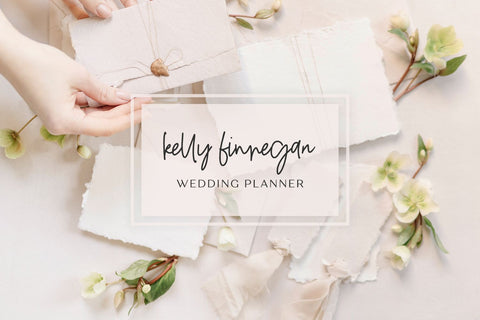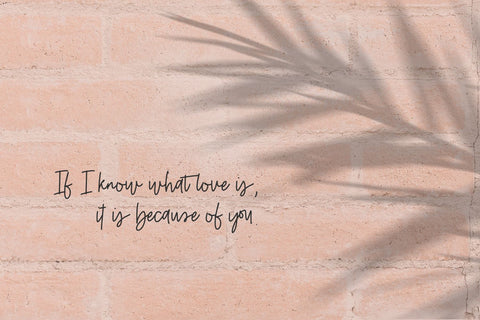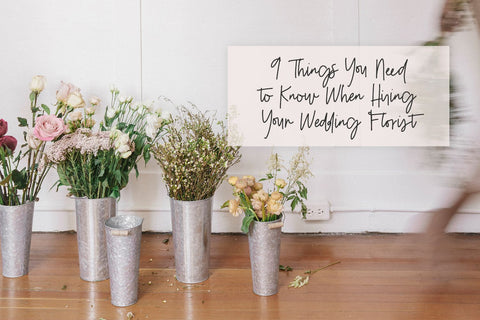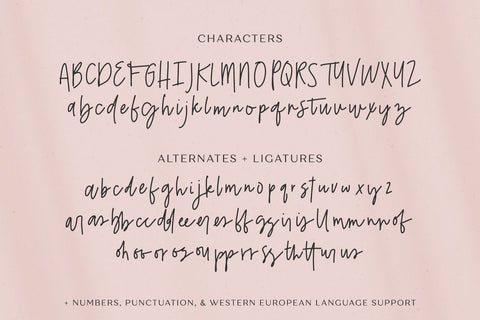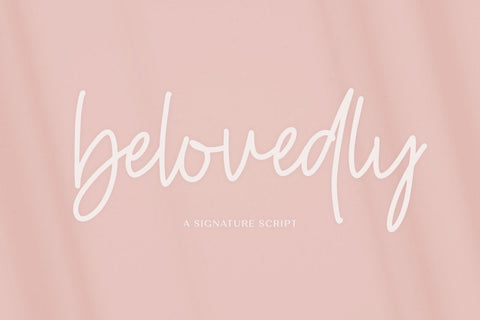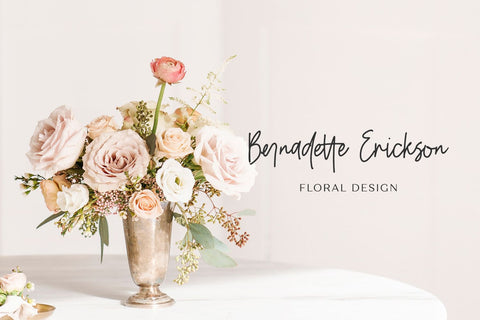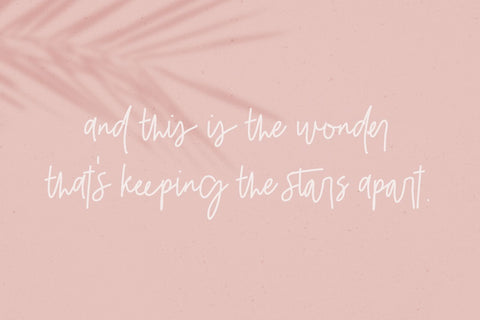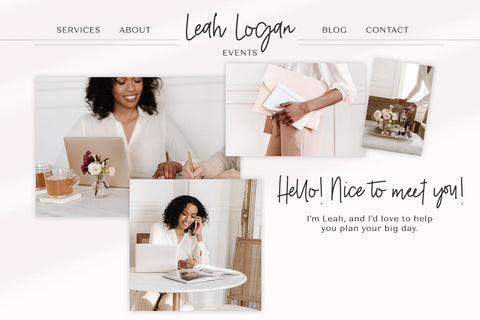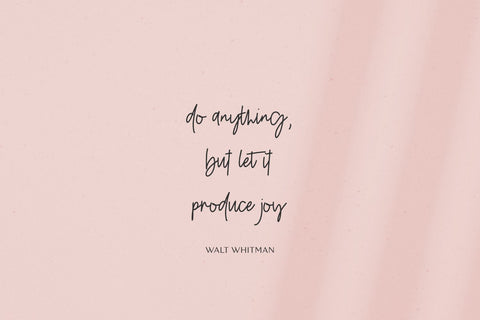
Belovedly Signature Script Font
Meet Belovedly, a handlettered signature script with feminine flair.  Belovedly has a messy, romantic feel and sports a second set of lowercase characters, as well as ligatures to customize the look of your text in your next project!
Belovedly is best for:
- logos + branding that need a refined yet effortless feel
- clean print design, like magazines + flyers
- website design & header elements that need a feminine touch
- quote graphics for social media
- trendy graphic tee designs
Belovedly includes:
- full upper + lowercase characters
- numbers + punctuation
- Western European Language Support
- 26 lowercase alternate characters
- 28 common ligatures - ar, as, bb, cc, dd, ee, er, es, ff, gg, ir, is, ll, mm, nn, of, oh, oo, or, os, ou, pp, rr, ss, th, tt, ur, us